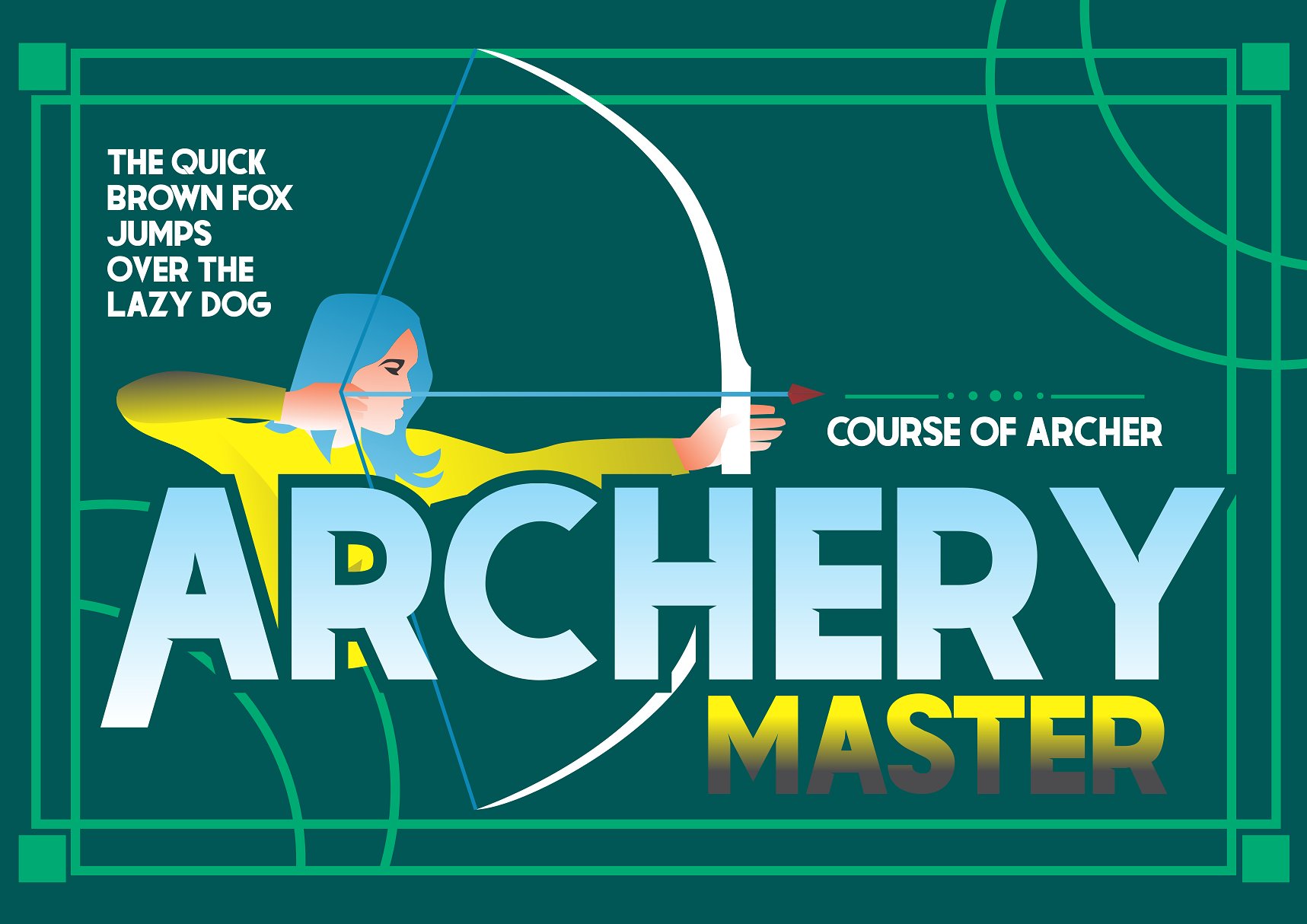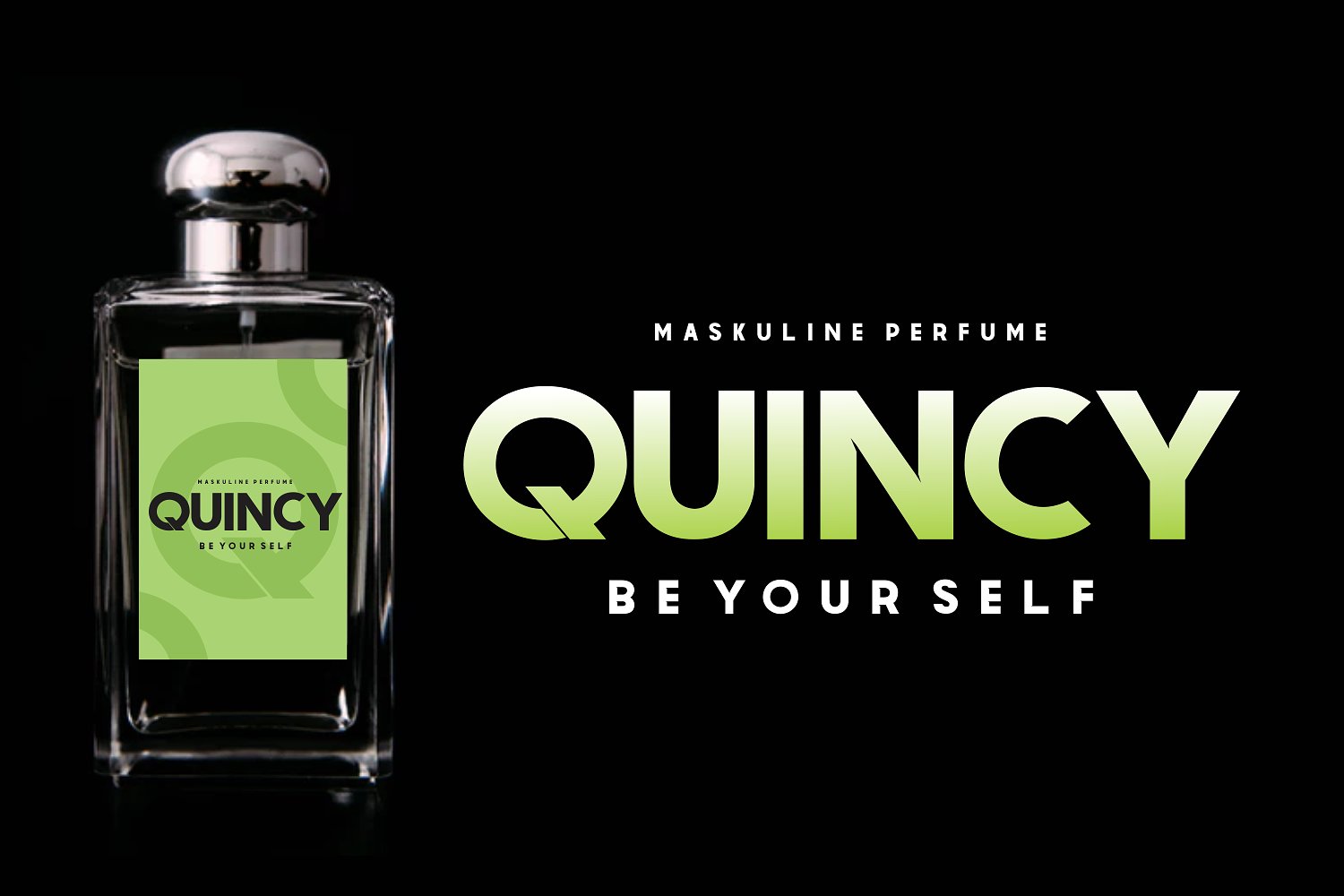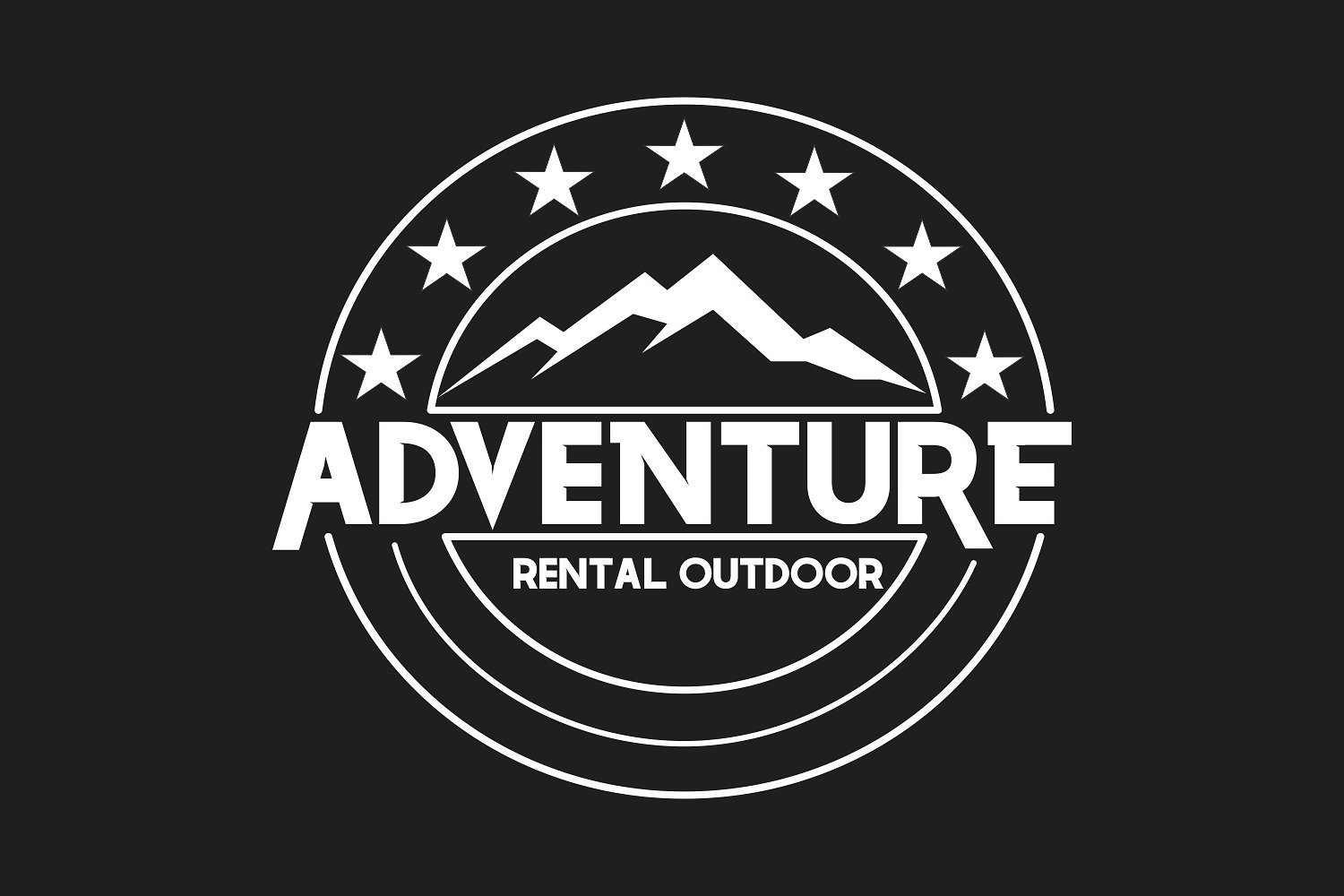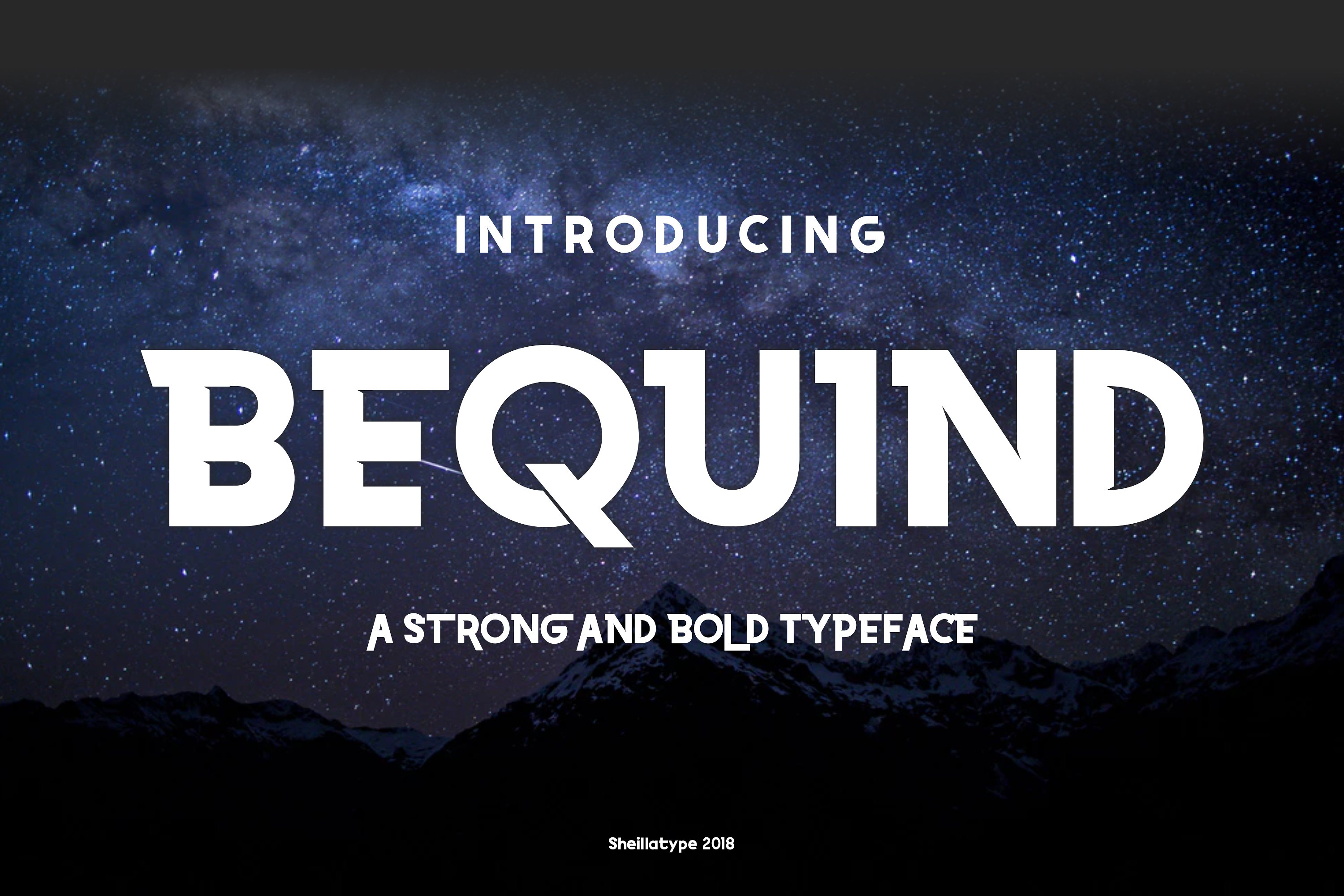
Bequind Dysplay Font
This is bold display font, geometric, clean and versatile, designed for headlines and typographic applications. Introducing Bequind Font. BEQUIND is a type of font that has a strong and modern impression, categorized in the DISPLAY font family, so this font is suitable for design purposes such as: Branding Logo Font Logo T-shirt Design Apparel Poster / Movie Monogram and others.